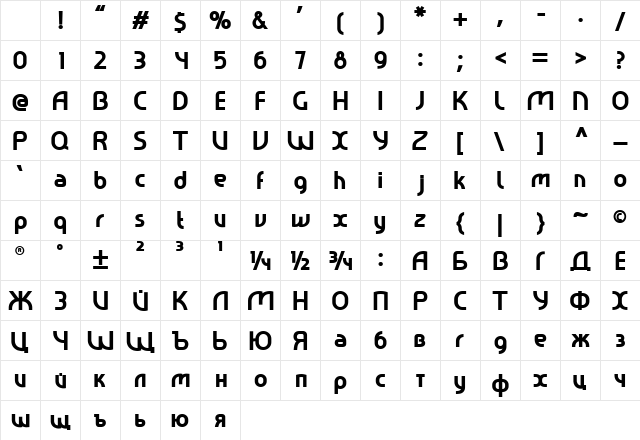
Complete Ralev001 ExtraBold glyph index. Displaying only characters natively supported by Ralev001 ExtraBold font.
Ralev001 is a composed and adaptable typeface that performs quietly and consistently across a wide range of design contexts. Its bold stroke weight gives it real presence on the page.